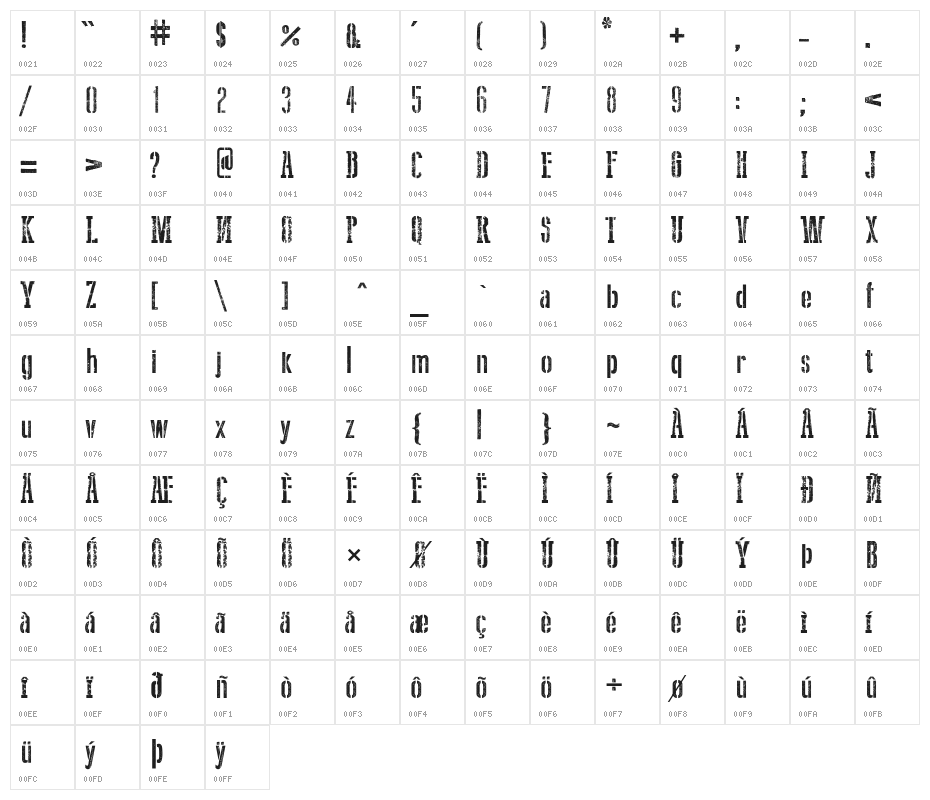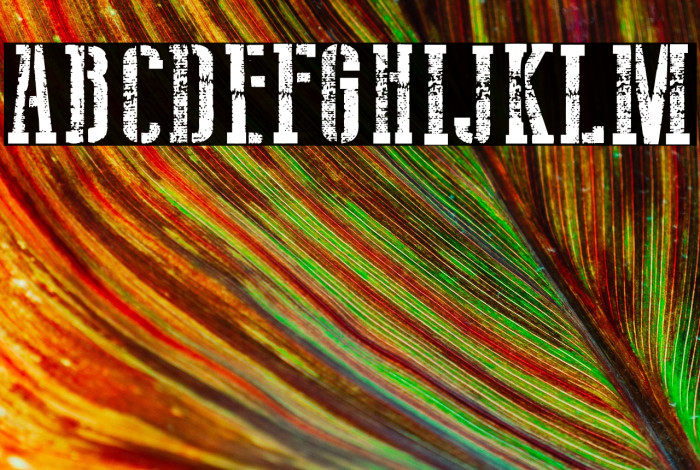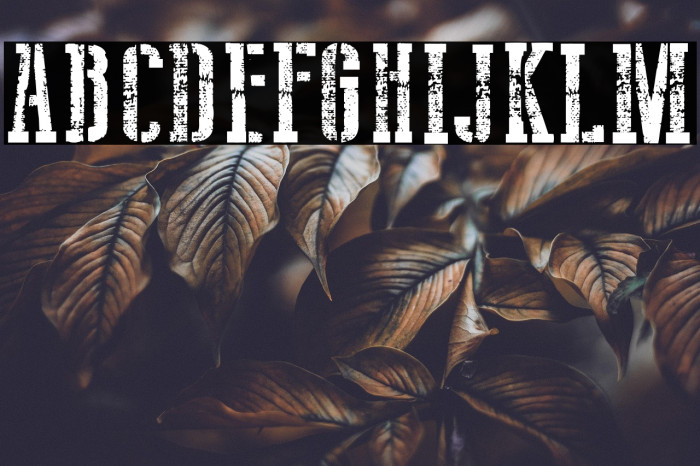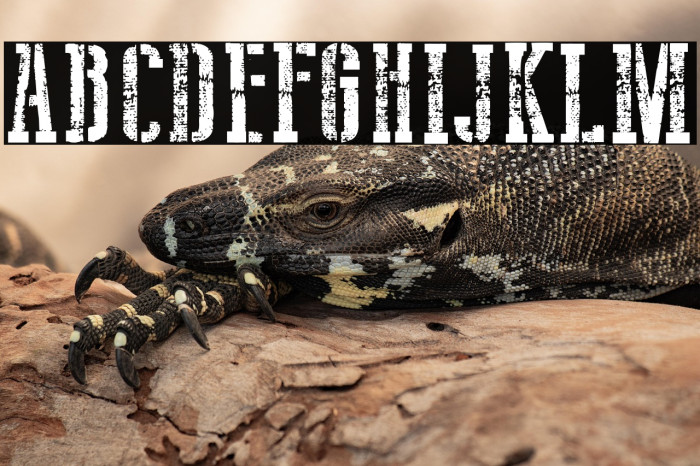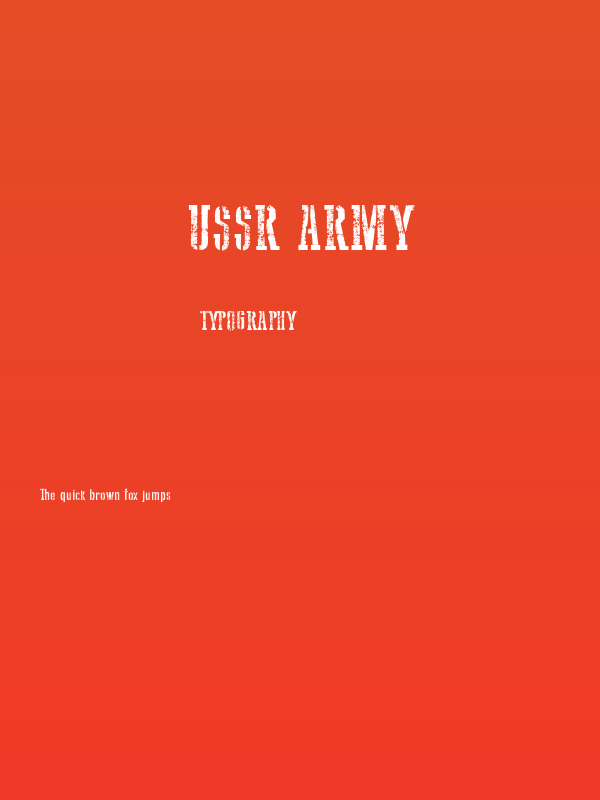
USSR Army Font
USSR Army Description
This font features a rugged, distressed appearance reminiscent of vintage military stencils. The bold, blocky letters are heavily textured, giving them a worn and weathered look. The uppercase and lowercase characters maintain a consistent style, with the uppercase being more prominent and commanding. Numbers and special characters follow the same distressed aesthetic, making them suitable for designs that require a strong, impactful presence. The overall style suggests a utilitarian and industrial feel, perfect for projects that aim to evoke a sense of history or toughness.
Overall StyleVintage
Proposed ProjectsIdeal for military-themed designs, posters, branding for rugged outdoor products, or any project needing a vintage, industrial look.